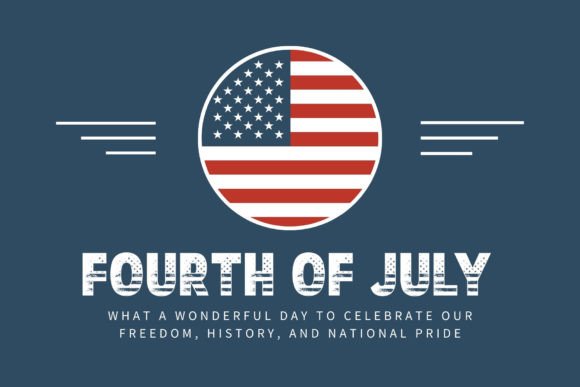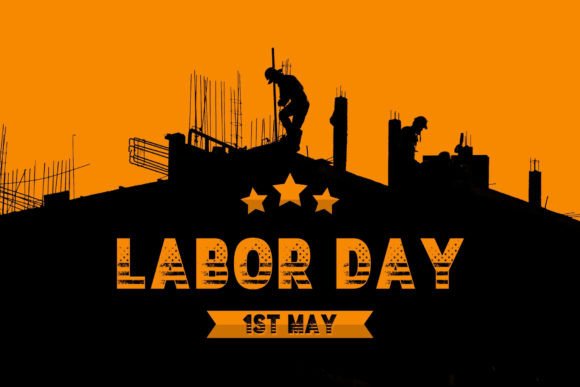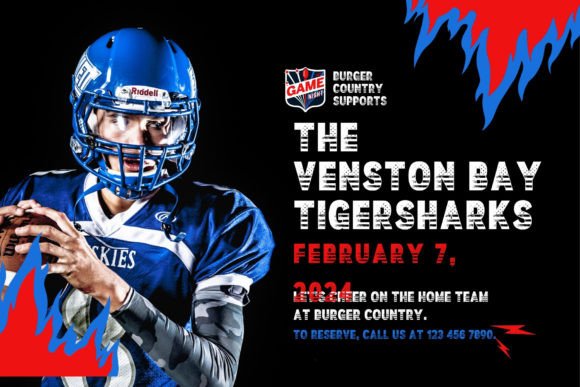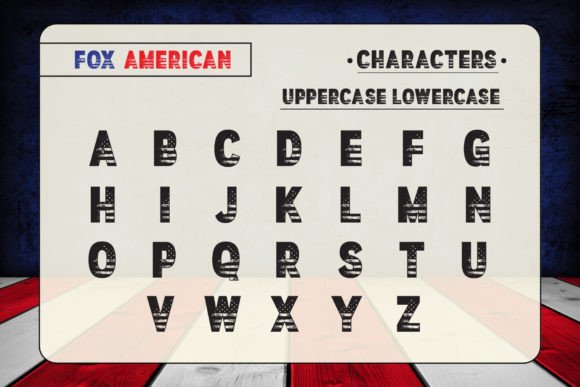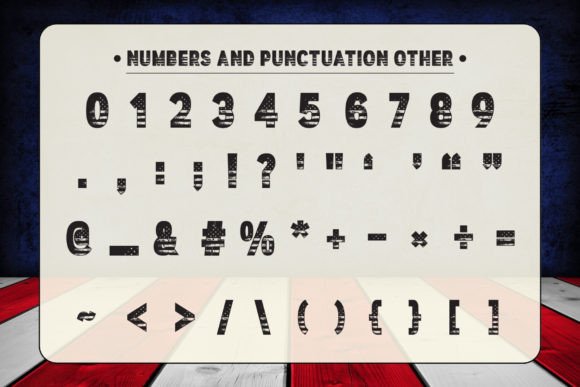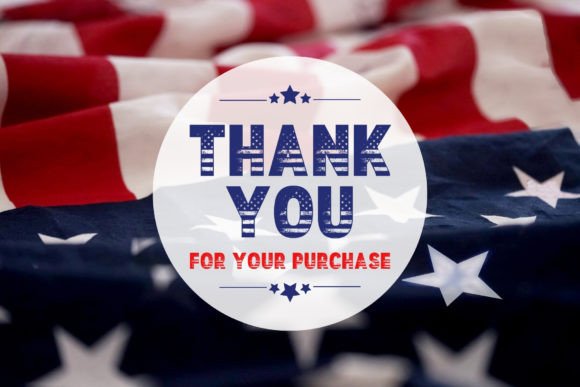
Introduction to Fox American Font
Have you ever stared at a blank design canvas, waiting for that perfect spark of inspiration? For many designers, the moment comes when they’re tasked with creating a project that celebrates American culture, history, or events like Independence Day. That’s when the Fox American Font comes into play – a high-quality, decorative font that instantly adds a touch of national pride and identity to any design.
This versatile design resource is a treasure trove for designers looking to create impactful headlines, banners, or signage that truly stand out. With its American flag motif, Fox American Font is a free download that’s perfect for any creative project requiring a bold and eye-catching touch. Whether you’re working on a patriotic-themed project or simply want to add a pop of color and texture, Fox American Font is a valuable asset that’s sure to elevate your designs to the next level.
Key Features of Fox American Font
- Includes a range of characters and glyphs, including uppercase and lowercase letters, numbers, and special characters.
- Designed with a bold and modern aesthetic, perfect for adding a touch of sophistication to any creative project.
Honest Review: Fox American Font
As a designer, I’m always on the lookout for unique and high-quality design resources to elevate my creative projects. Recently, I stumbled upon the Fox American Font, and I must say, it’s been a game-changer for my latest design endeavors. ✨
Here’s what I love about this font:
- The transparent background allows for seamless integration with any design project, giving me more creative freedom.
- The font itself is incredibly versatile, making it perfect for a wide range of design applications, from branding to digital media.
- Some of the characters can appear a bit pixelated when scaled up, which can be a concern for larger design projects.
- The font doesn’t come with a comprehensive user manual or support, which can make it tricky for beginners to get the most out of it.
Despite these limitations, I’m thoroughly impressed with the Fox American Font. It’s a valuable addition to any designer’s toolkit, offering a unique and high-quality design resource that’s perfect for creative projects. Overall, I’d highly recommend giving it a try – it won’t disappoint! ⭐️
Common Use Cases for Fox American Font
The Fox American Font is perfect for a variety of creative projects, including logos, business cards, graphics, and presentations. It’s a great design resource for anyone looking to add a touch of elegance and sophistication to their work.
Alternatives to Fox American Font
1. Comic Sans MS
Comic Sans MS is a sans-serif font that is perfect for creative projects, such as children’s books or cartoons. It’s a great alternative to Fox American Font for a more playful and informal look. When to use: For projects that require a fun and casual tone. How it compares: Comic Sans MS is more playful and casual compared to Fox American Font.
Is the Fox American Font suitable for use on a transparent background?
Yes, the Fox American Font is designed to be used on a transparent background, making it ideal for use in digital art, graphic design, and other creative projects where a transparent background is required. The font’s high-quality design and crisp lines ensure that it looks great even when used on a transparent background.